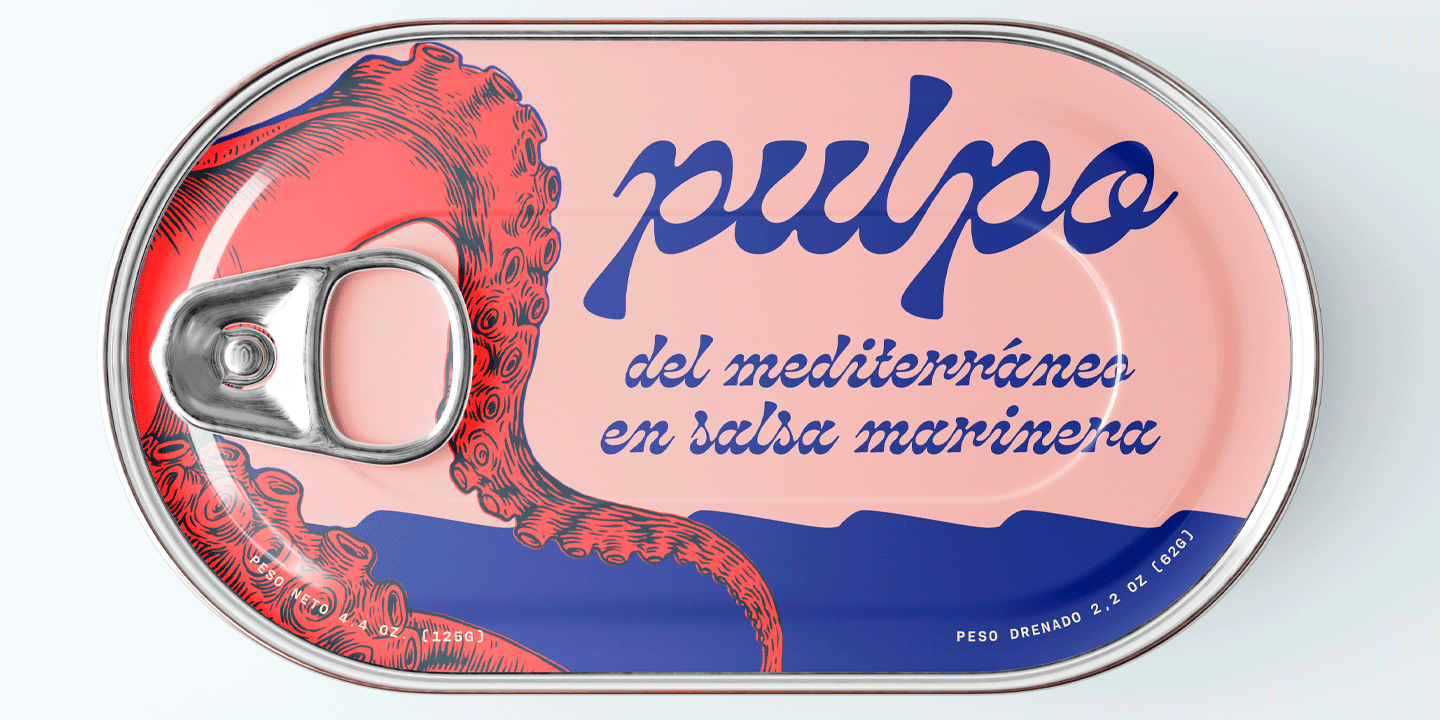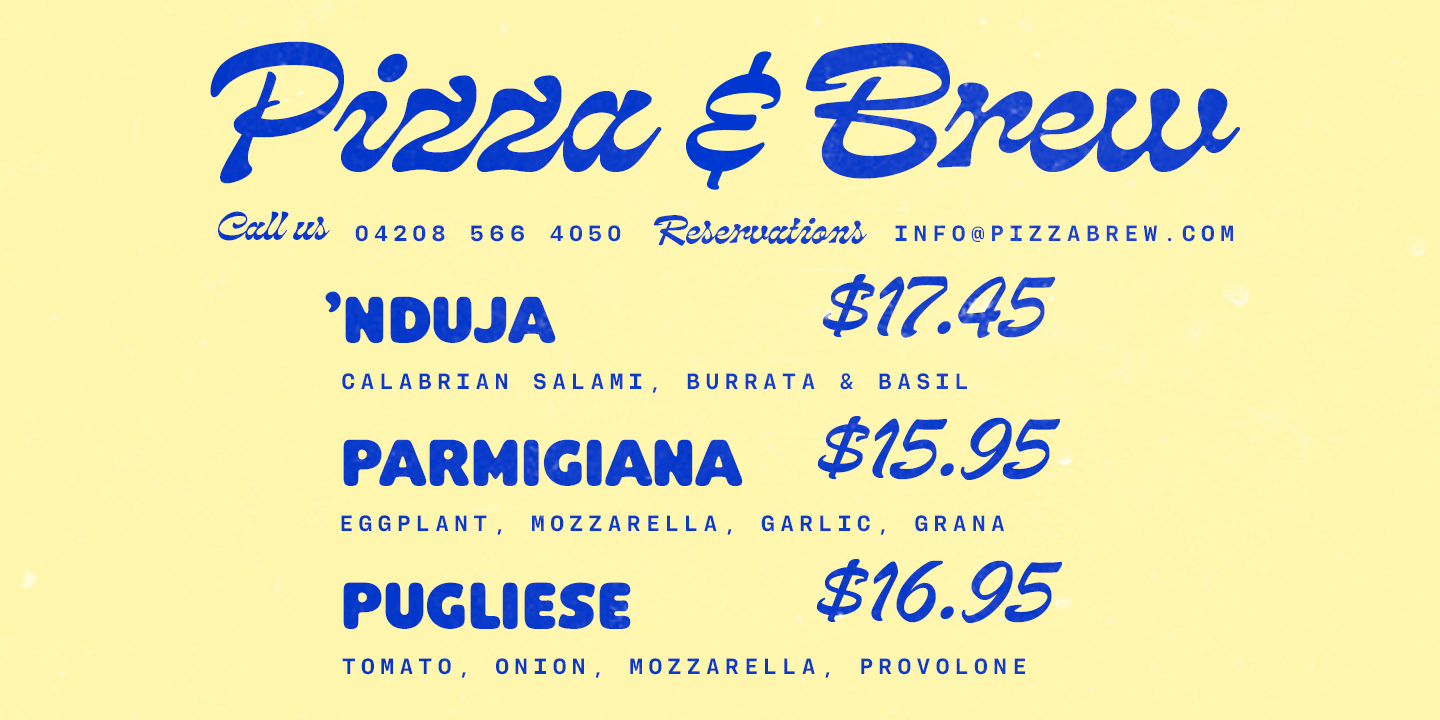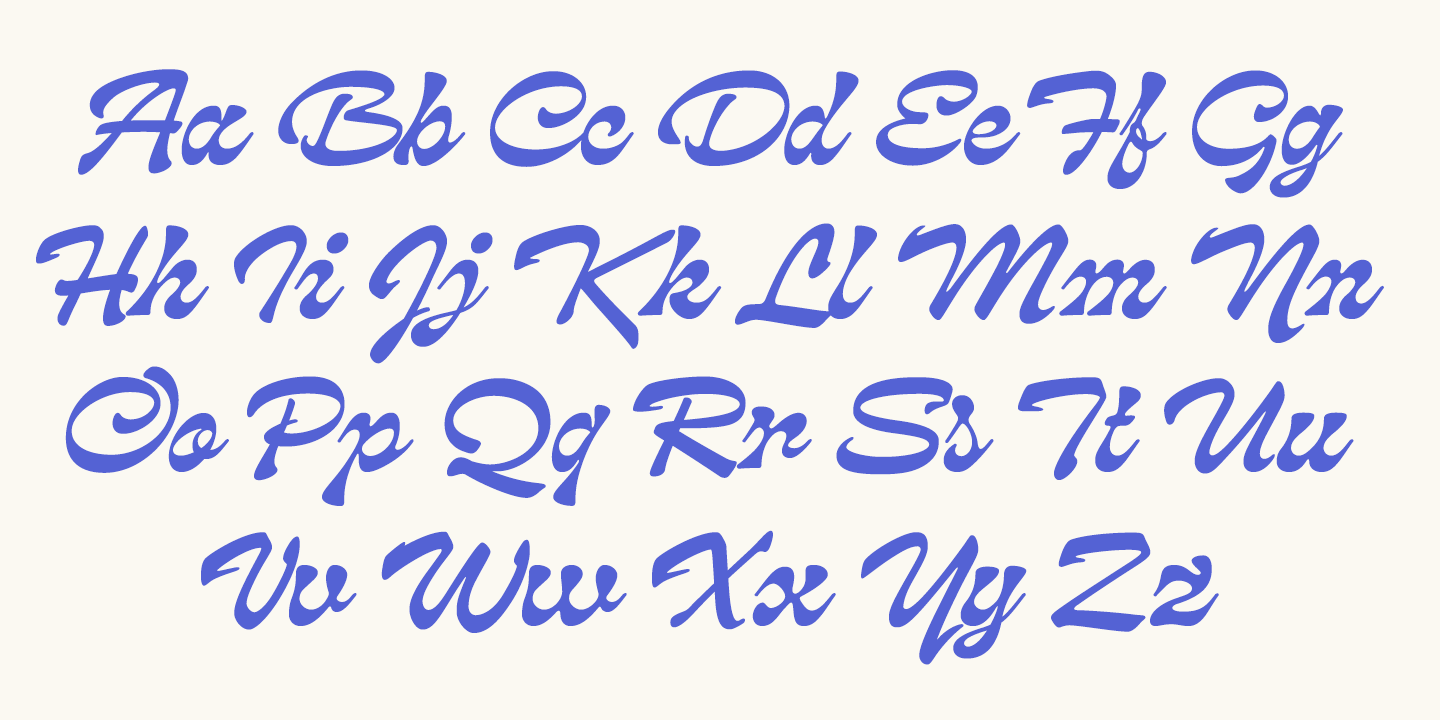
About Pacific Coast
Pacific Coast is a reverse-contrast brush script with a mellow and smooth summer vibe. Feel the Pacific waves and warm breeze as you type with Pacific Coast. It's a distinctive and stylish choice for packaging, labels, posters, and headlines. Pacific…